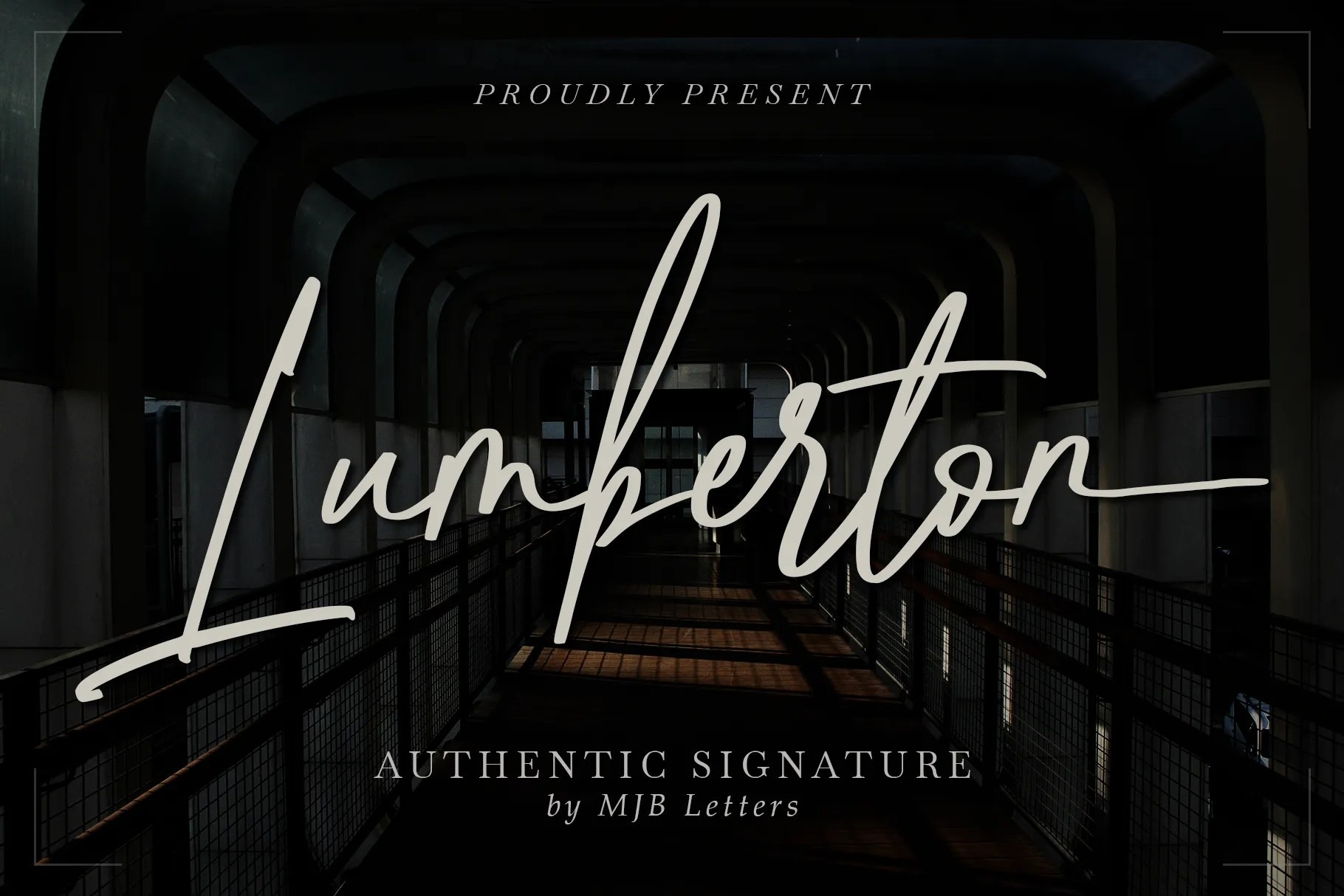
Lumberton Font
Lumberton Font is a premium-quality font developed to enhance your work with a polished, modern, and visually elevated look. Lumberton is a stylish handwritten signature font that blends elegance with a modern touch. Designed to look natural and fluid, it brings a personal, confident feel to your branding and creative projects. Perfect for logos, business cards, packaging, wedding stationery, social media posts, and more.